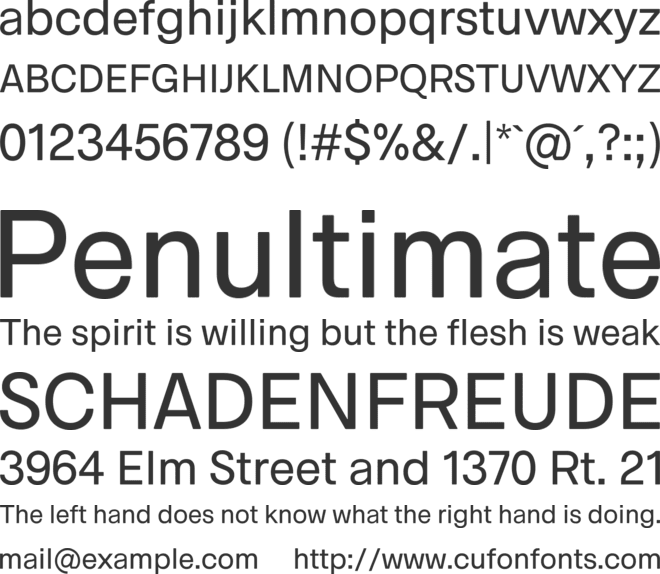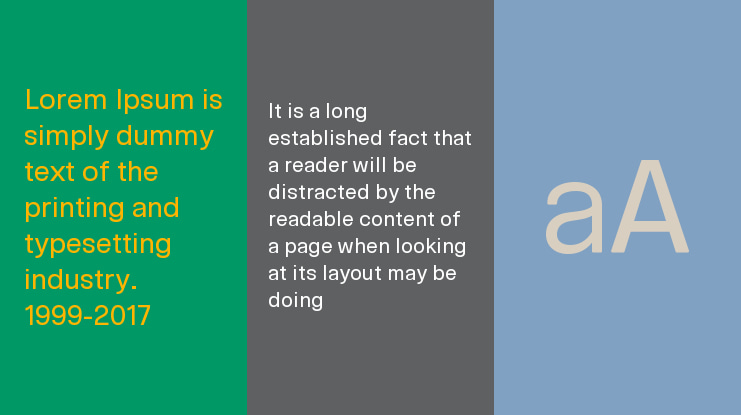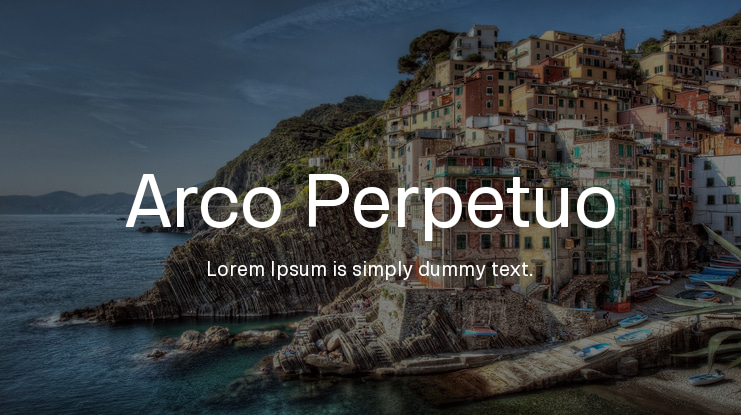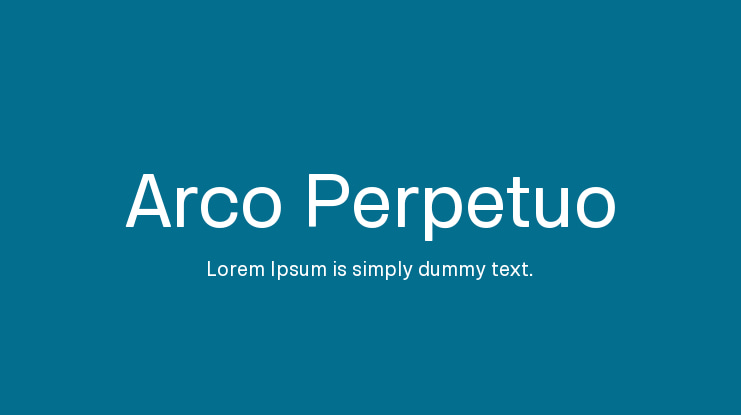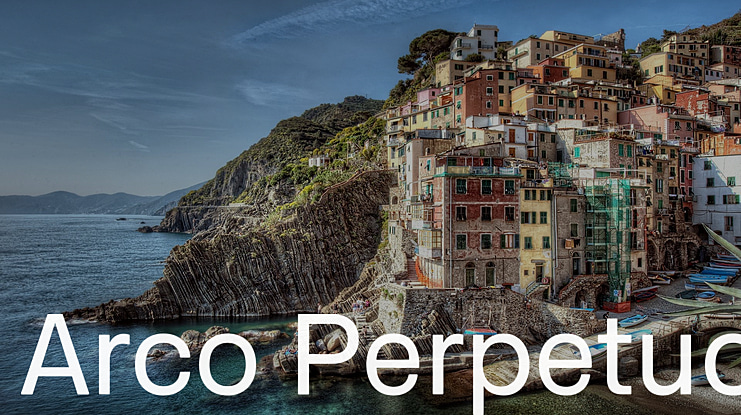
Arco Perpetuo Font
Alfredo Marco Pradil
Arco Perpetuo is a sans serif typeface with subtle rounded corners for the display stability on screen. Arco Perpetuo functions as small text or as big headlines.